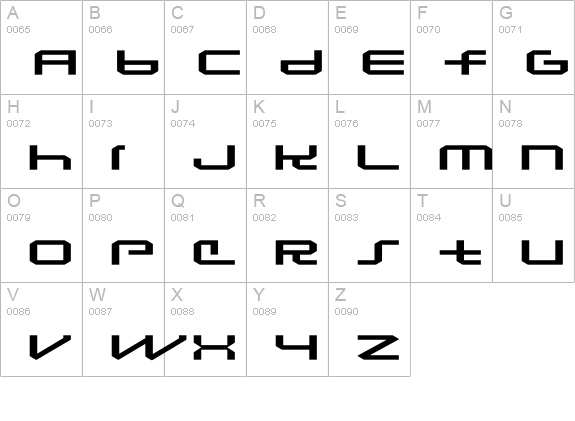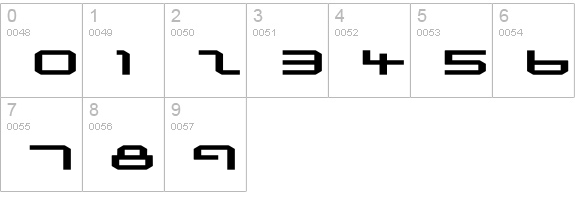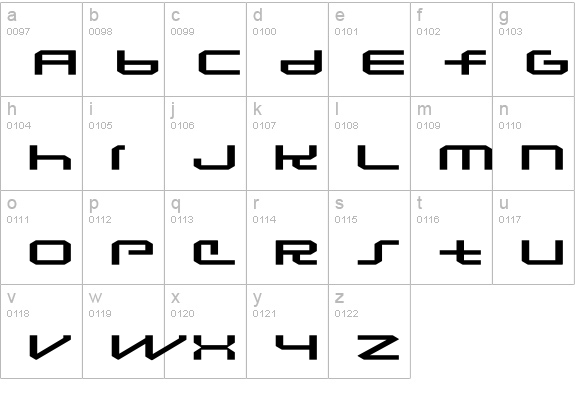
Lunasequent Font Details
Lunasequent font is a modern and sleek typeface that exudes sophistication and elegance. With its clean lines and unique letterforms, this font is perfect for a wide range of design projects, from branding to editorial design. The smooth curves and sharp angles of Lunasequent create a sense of harmony and balance, making it a versatile choice for both print and digital applications. The best part about Lunasequent font is that it is completely free to download at FontsMarket.com. This means that you can add this stylish and eye-catching font to your collection without breaking the bank. Whether you're creating a logo, designing a website, or working on a poster, Lunasequent font will elevate your project and make a lasting impression. Don't miss out on the opportunity to enhance your designs with the elegant and sophisticated Lunasequent font. Download it for free today at FontsMarket.com and take your creations to the next level.